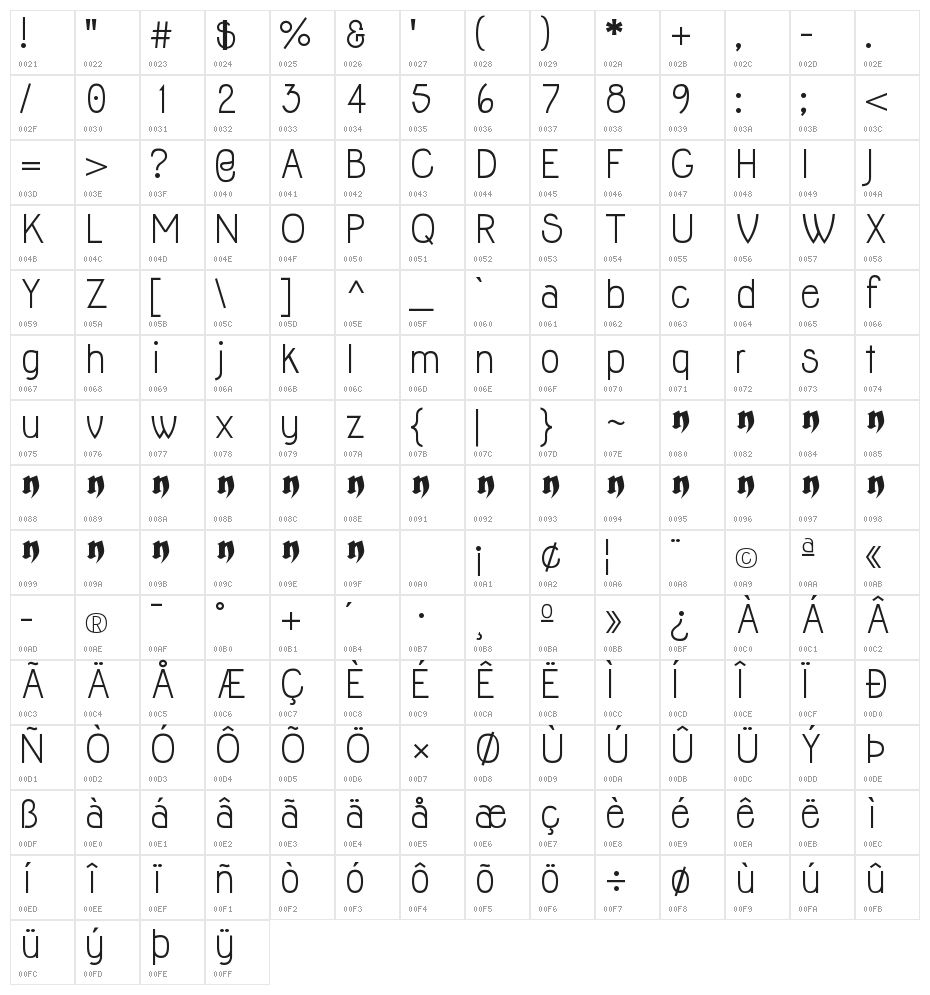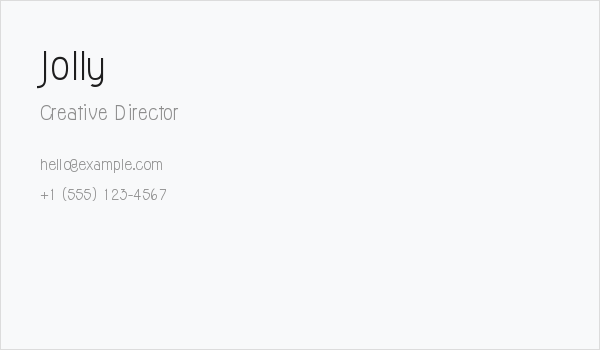
Jolly Font
Jolly Description
This font features a clean and modern sans-serif design with a geometric structure. The characters are uniform and balanced, offering a sleek and contemporary appearance. The uppercase letters are bold and assertive, while the lowercase letters maintain a consistent style with slightly rounded edges, providing a friendly and approachable feel. The numerals are clear and easy to read, making them suitable for various applications. The special characters are well-integrated, maintaining the overall aesthetic of the font. Its simplicity and clarity make it versatile for both digital and print media.
| Proposed Projects | Ideal for branding, web design, advertising, and editorial projects. |